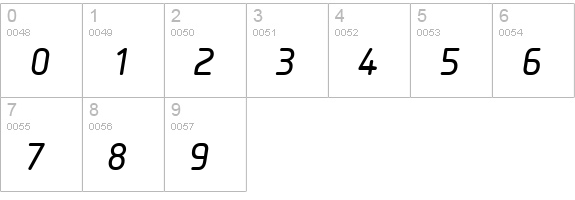
PFIsotextPro-Italic Font Details
PFIsotextPro-Italic is a distinctive, italic variant in the PFIsotextPro typeface family \xE2\x80\x94 well suited to design and typography projects.
PFIsotextPro-Italic font is a stylish and modern typeface that exudes elegance and sophistication. With its sleek lines and subtle curves, this italicized version brings a touch of flair to any design project. Perfect for adding a touch of sophistication to your documents, presentations, or branding materials. What sets PFIsotextPro-Italic font apart is that it is available for free download at FontsMarket.com. This means you can easily access this premium font without any cost, making it a valuable addition to your font library. Whether you're working on a personal project or a professional design, PFIsotextPro-Italic font is sure to elevate your work with its unique style and versatility. Download it today and see the difference it can make in your designs.